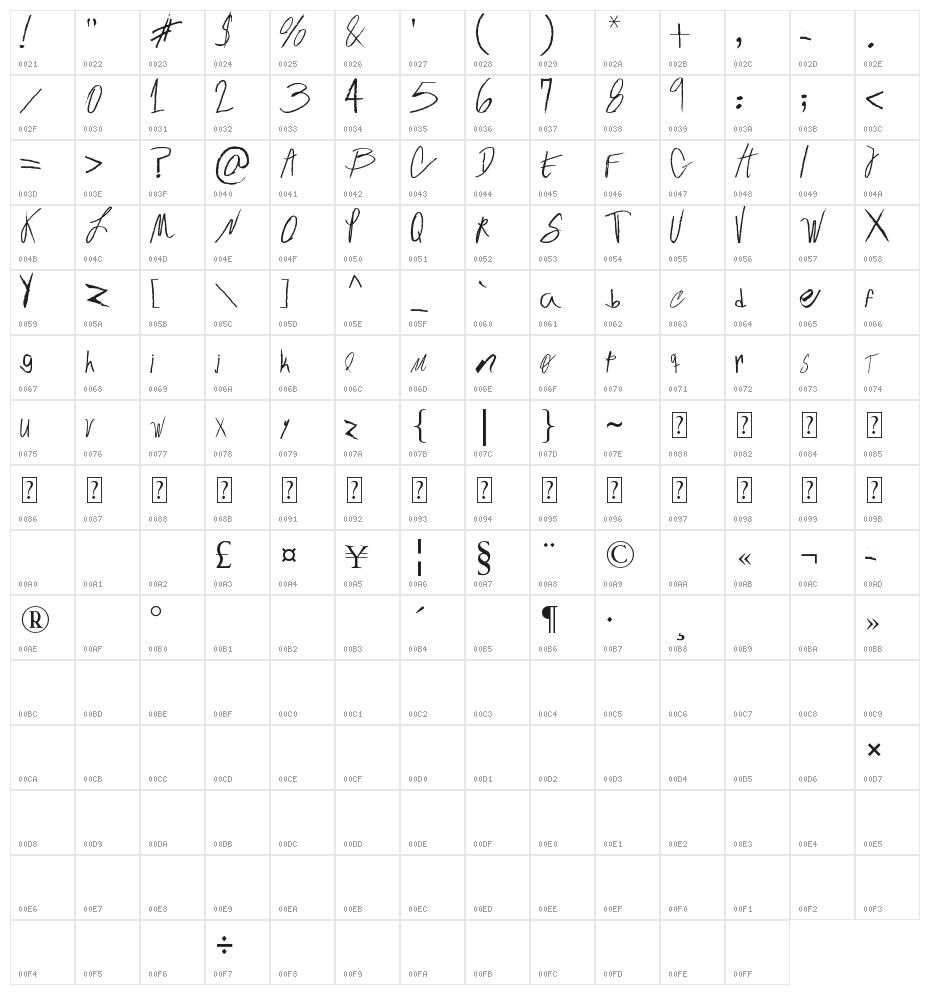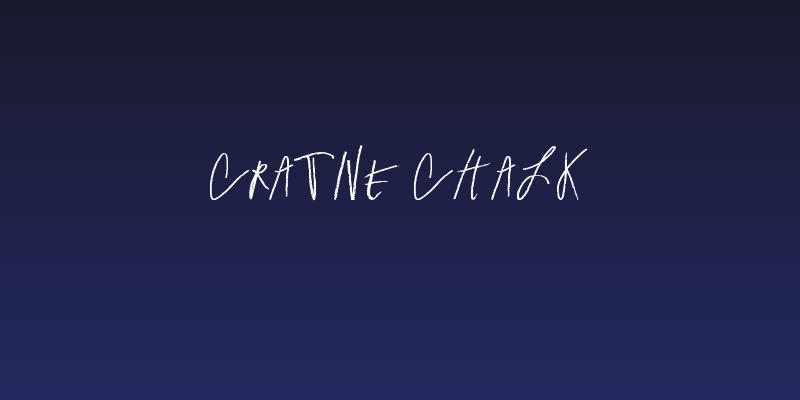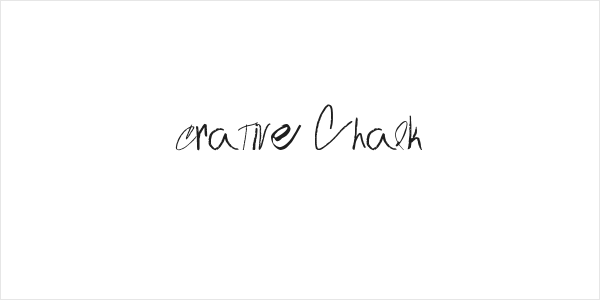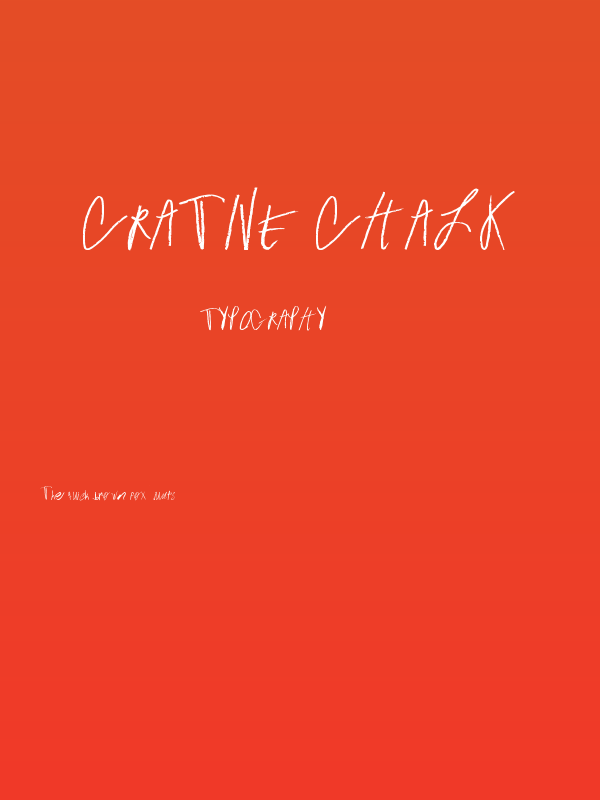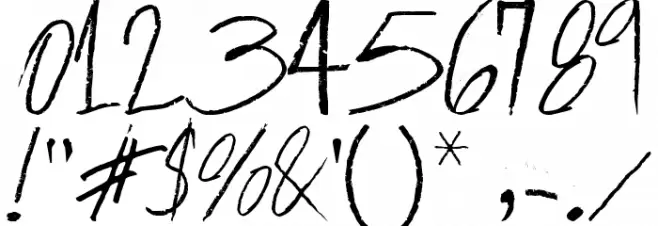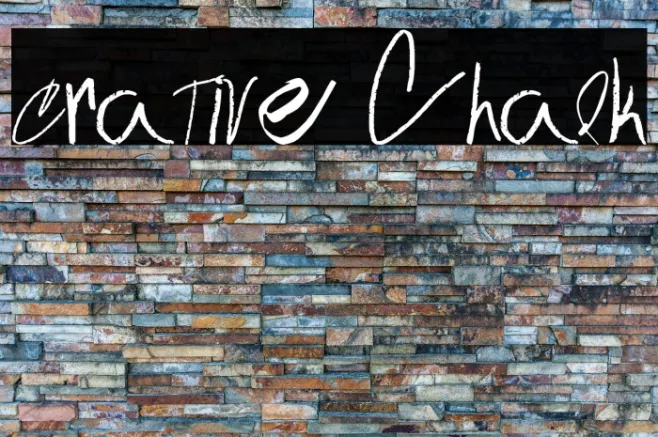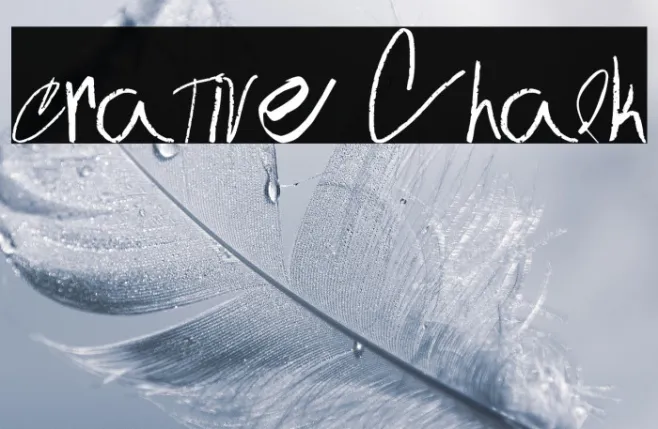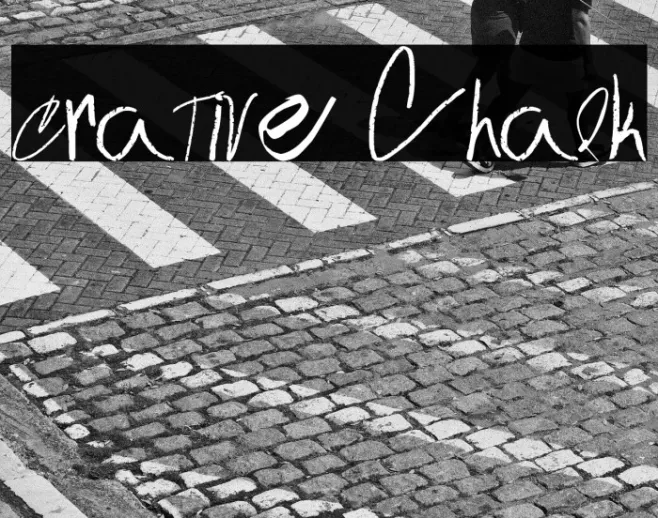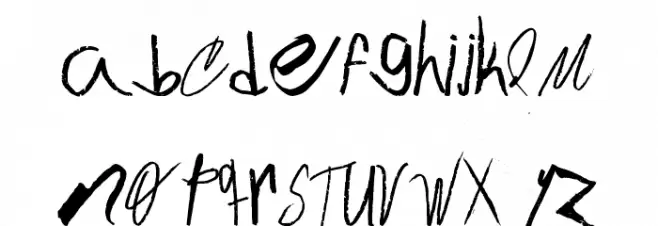
crative Chalk Font
| Nom | crative Chalk |
| Famille de police | crative Chalk |
| Style | crativeChalk |
| Style général | Playful, Artistic |
| Cas d'utilisation | Headlines, Creative projects, Informal settings |
| Projets proposés | Ideal for children's book covers, playful posters, educational materials, and creative branding. |
| Auteur | Fonts by scratchones |